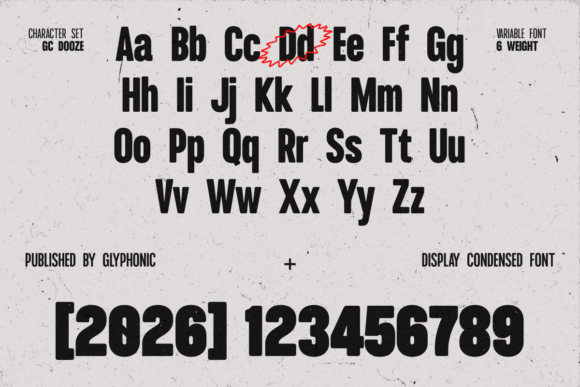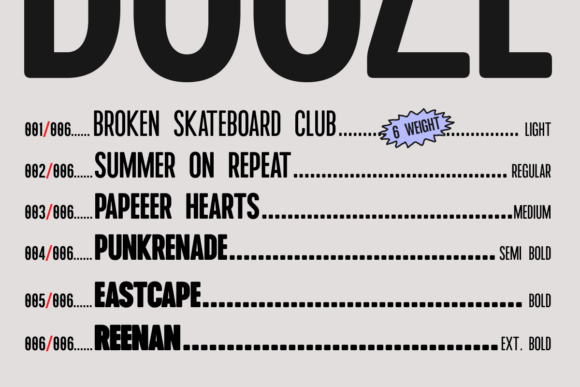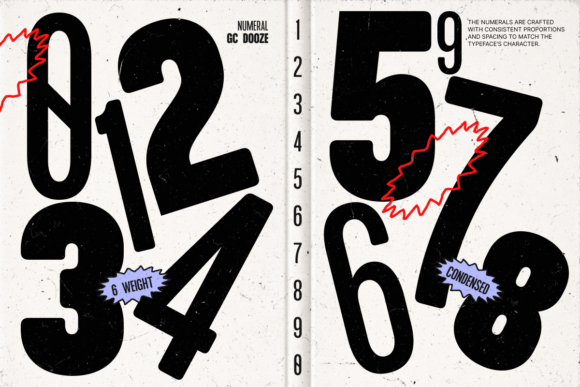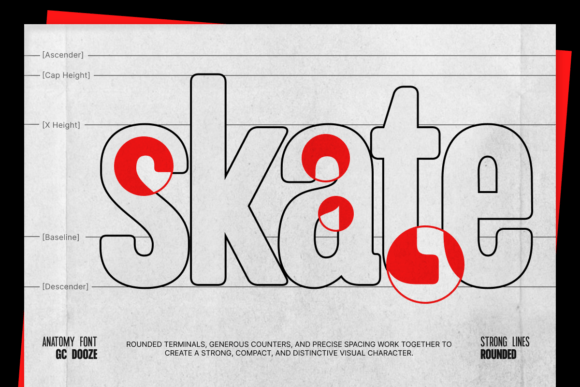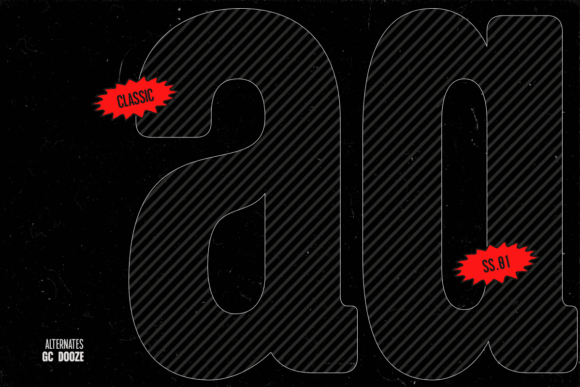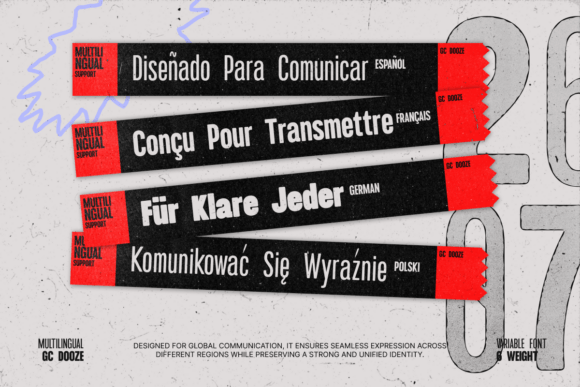
Introducing Dooze Font: Elevate Your Visual Hierarchy with a High-Impact Display Condensed Font
In the world of typography, a font can make or break a design. For designers and crafters looking to elevate their visual hierarchy, Dooze font is a game-changer. This high-impact display condensed font is more than just a headline font; it’s a versatile tool designed to help modern creators push the boundaries of their work. With its unique blend of strong lines and playful curves, Dooze is perfect for a wide range of applications, from gritty streetwear branding to sleek editorial layouts.
Unparalleled Flexibility with 6 Weights and Variable Font Technology
One of the standout features of Dooze font is its incredible flexibility. Available in 6 weights, Dooze is also a Variable font, allowing designers to fine-tune the font to suit their specific needs. This means you can adjust the “strong lines” and “playful curves” to create a unique look that fits your brand or design style. Whether you’re working on a bold poster, sports branding, modern apparel, or high-energy social media content, Dooze has got you covered.
Perfect for Bold and Eye-Catching Designs
Dooze font is specifically designed for bold and eye-catching designs. Its condensed style makes it perfect for headlines, titles, and short bursts of text, while its high-impact style ensures that your message will grab attention. Whether you’re looking to create a statement piece or simply want to add some visual interest to your design, Dooze is the perfect choice.
Applications for Designers and Crafters
So, what can you use Dooze font for? The possibilities are endless! Here are a few ideas to get you started:
• Streetwear Branding: Dooze font is perfect for creating bold and eye-catching logos, labels, and packaging for streetwear brands.
• Sports Branding: With its high-energy style, Dooze is ideal for sports branding, including team logos, jerseys, and advertising materials.
• Modern Apparel: Dooze font is great for creating stylish and modern apparel, including t-shirts, hoodies, and hats.
• Editorial Layouts: Dooze can also be used for sleek editorial layouts, including magazines, newspapers, and online publications.
• Social Media: With its bold and eye-catching style, Dooze font is perfect for creating high-energy social media content that grabs attention.
Why Choose Dooze Font?
So, why should you choose Dooze font for your next design project? Here are just a few reasons:
• Flexibility: With 6 weights and Variable font technology, Dooze offers unparalleled flexibility.
• High-Impact Style: Dooze font is designed to grab attention and make a statement.
• Unique Style: The blend of strong lines and playful curves creates a unique and eye-catching style.
In conclusion, Dooze font is a high-impact display condensed font that’s perfect for designers and crafters looking to elevate their visual hierarchy. With its unique blend of strong lines and playful curves, Dooze offers unparalleled flexibility and a high-impact style that’s sure to grab attention. Whether you’re working on a bold poster, sports branding, modern apparel, or high-energy social media content, Dooze font is the perfect choice.